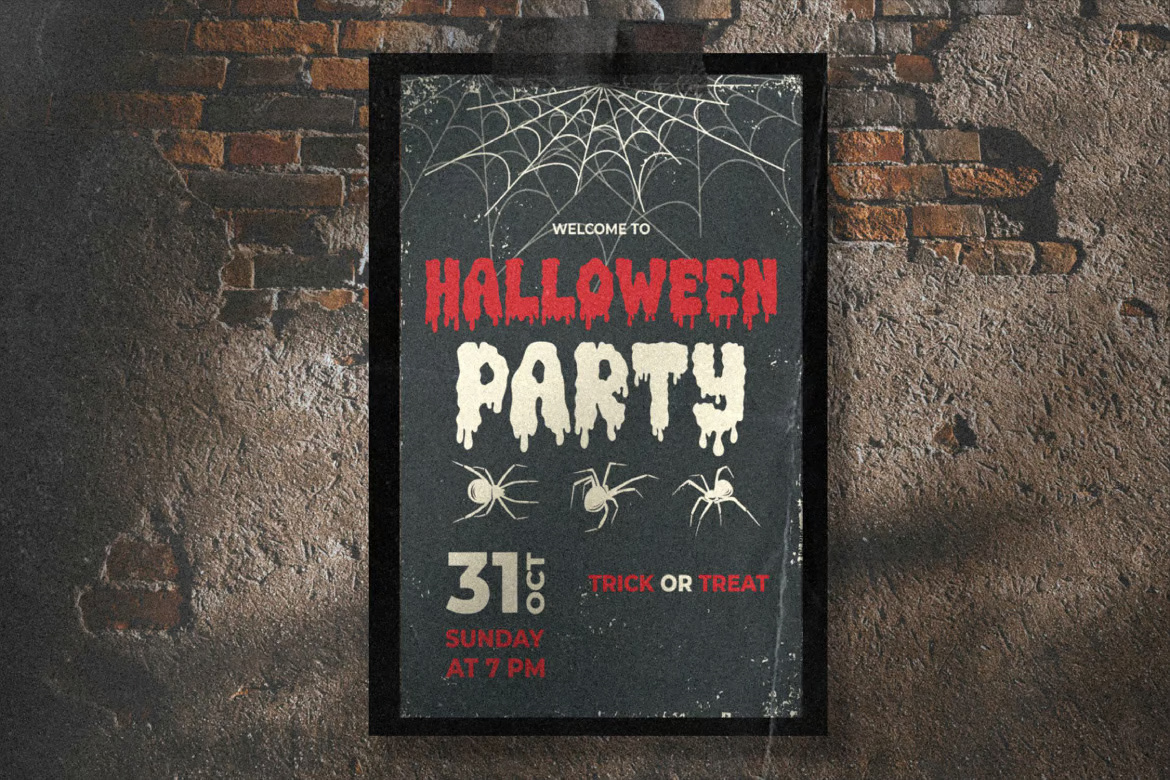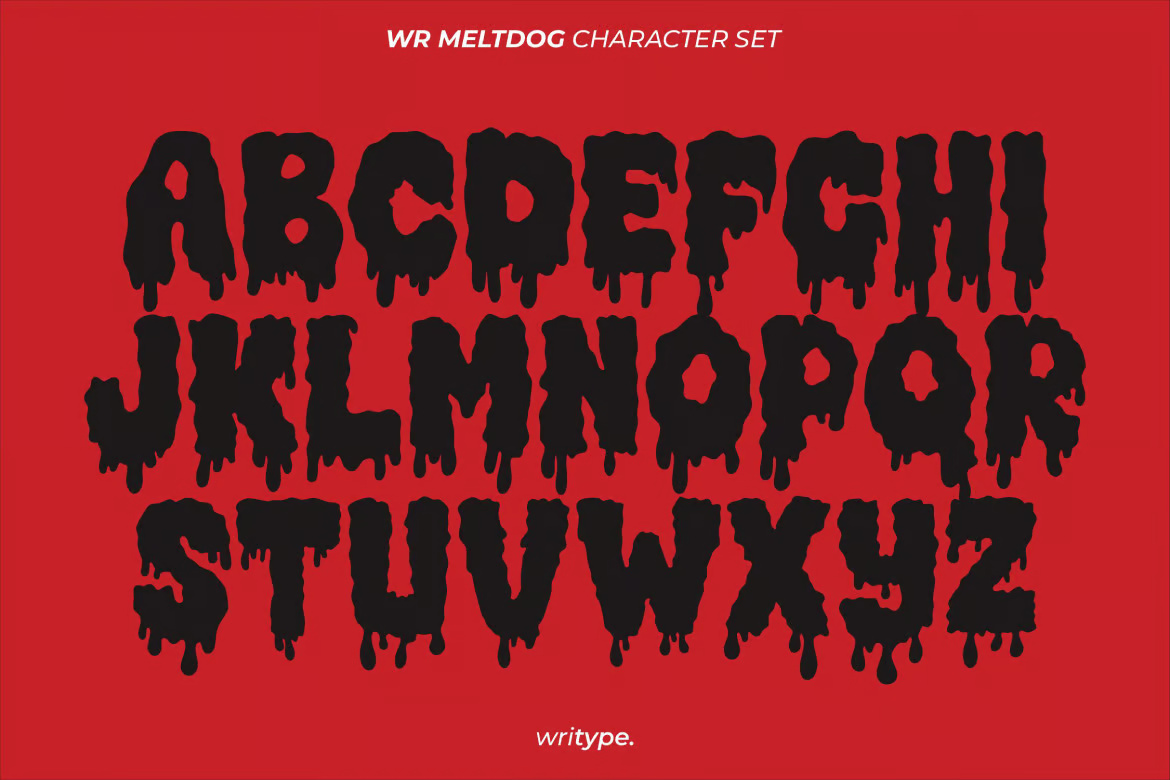
Meltdog Melted Display Font
WR Meltdog – Melted Display Font by WriType
WR Meltdog is a bold, hand-drawn display font featuring a unique melting effect that adds a dynamic, fluid, and edgy aesthetic to any design. Available in Regular and Extrude styles, this font is perfect for posters, branding, logos, album covers, gaming graphics, and bold statement pieces. Its dripping, liquid-like appearance creates an eye-catching, rebellious vibe that stands out in both digital and print projects.
Unleash your creativity and let your designs melt into style!